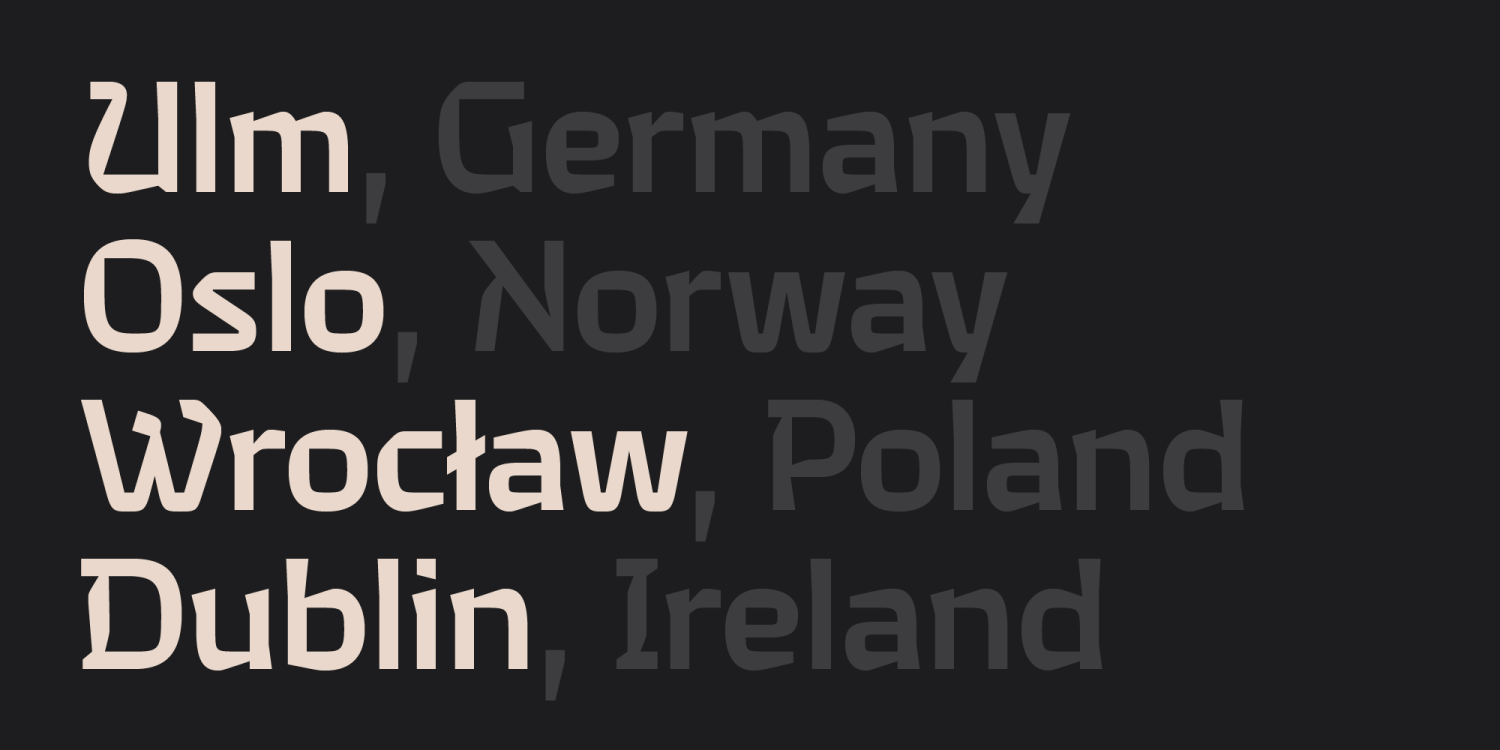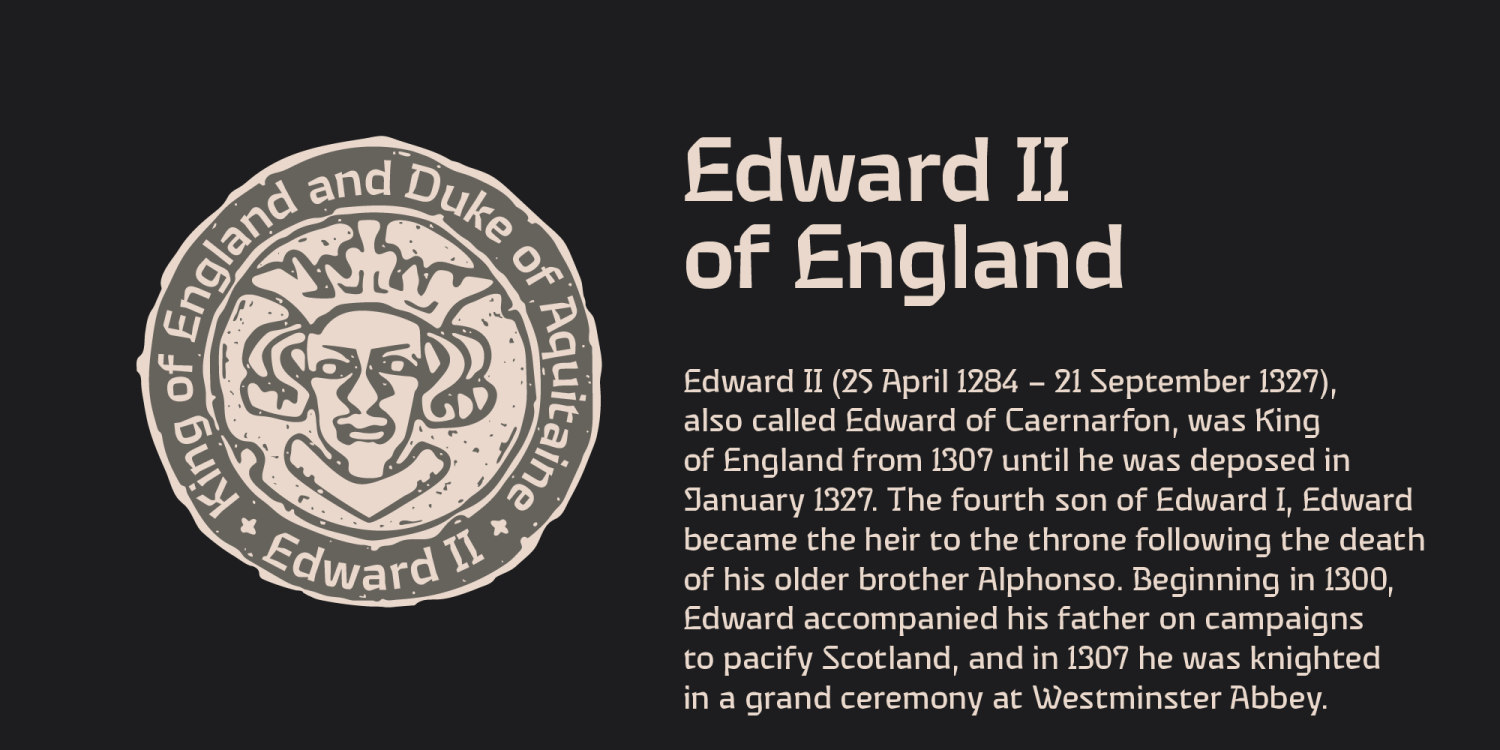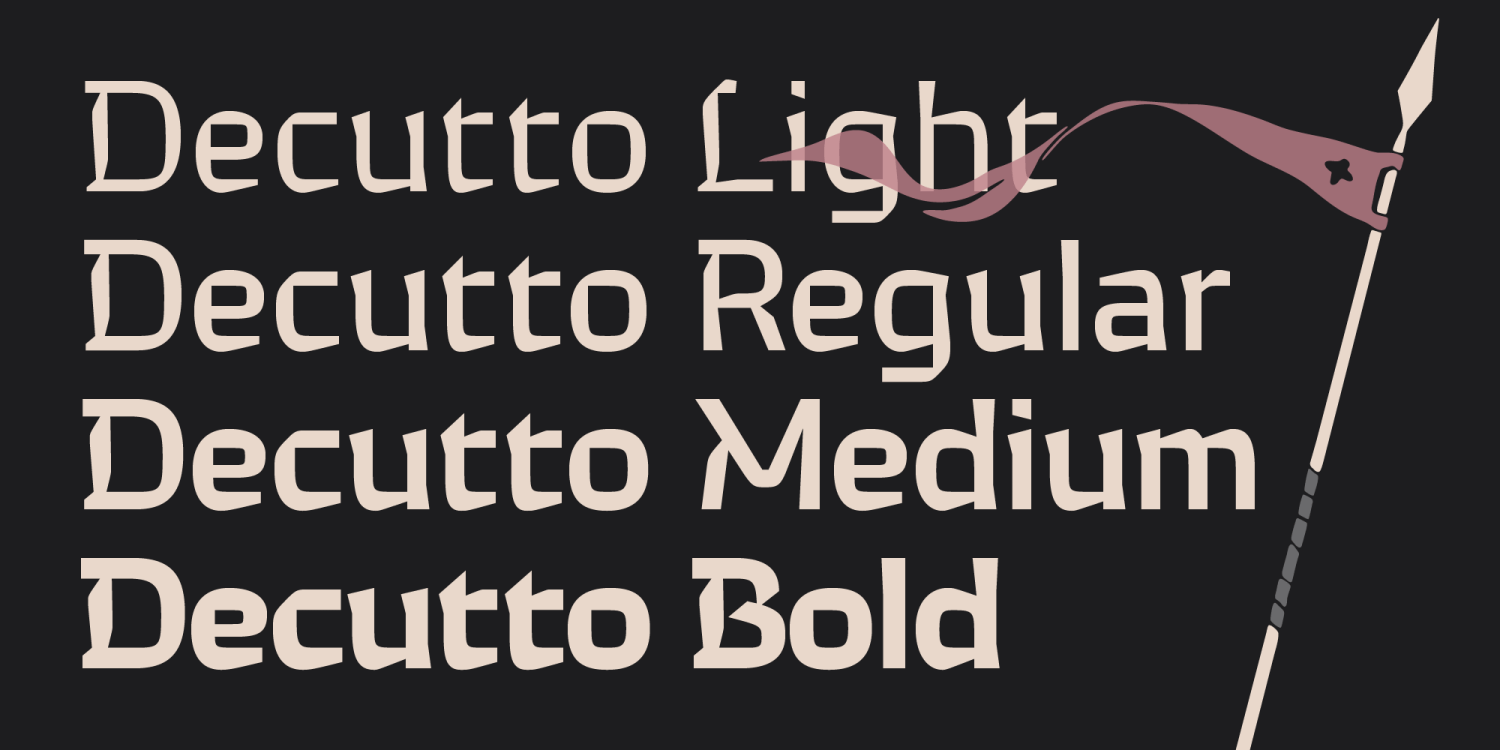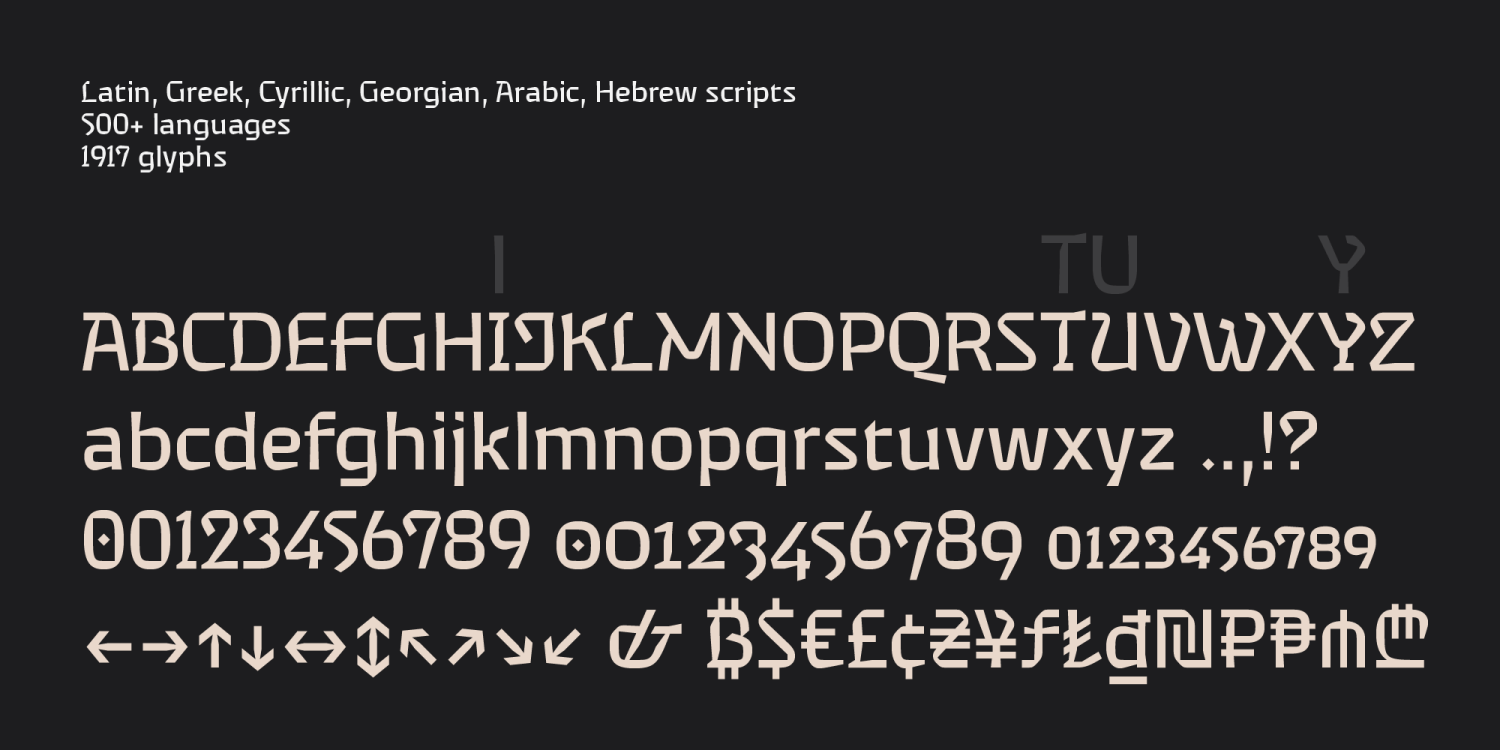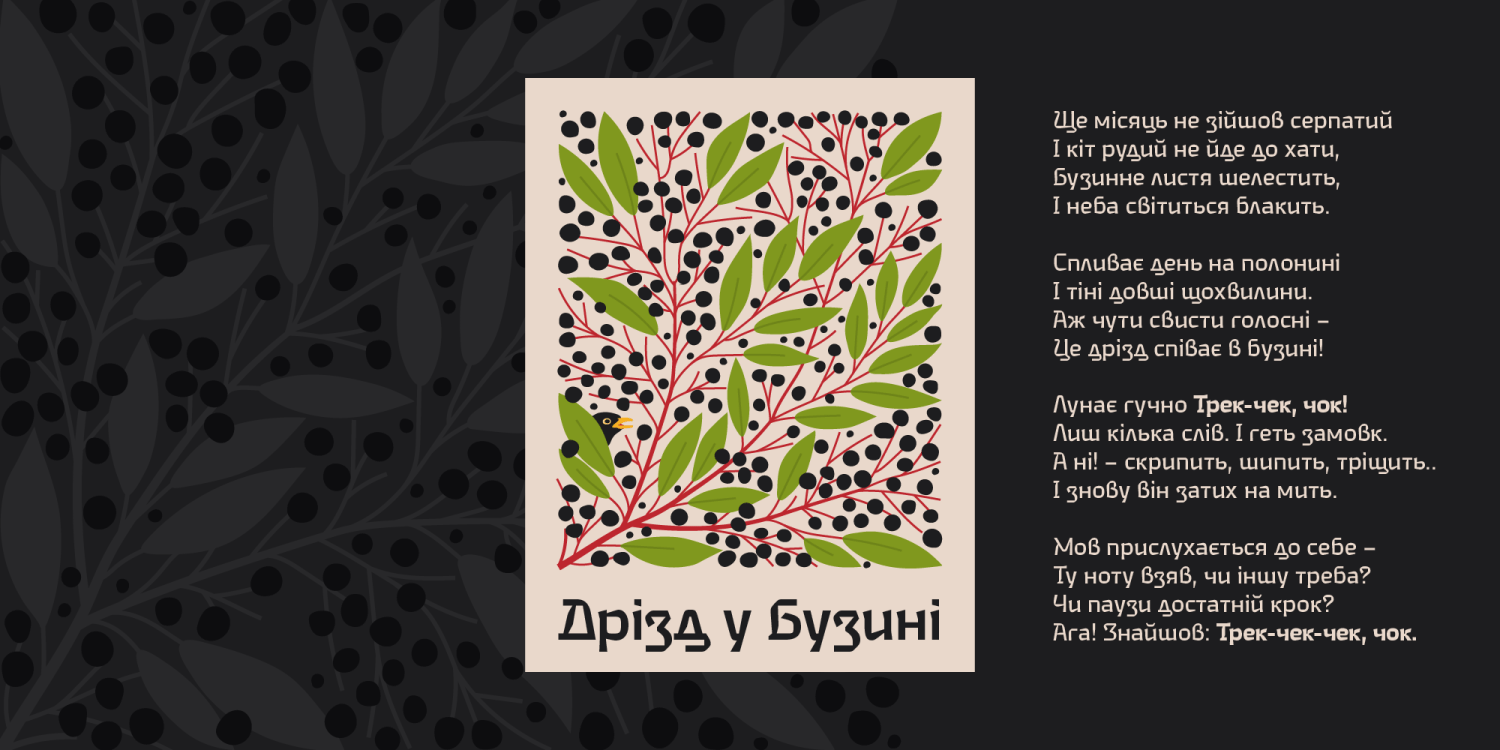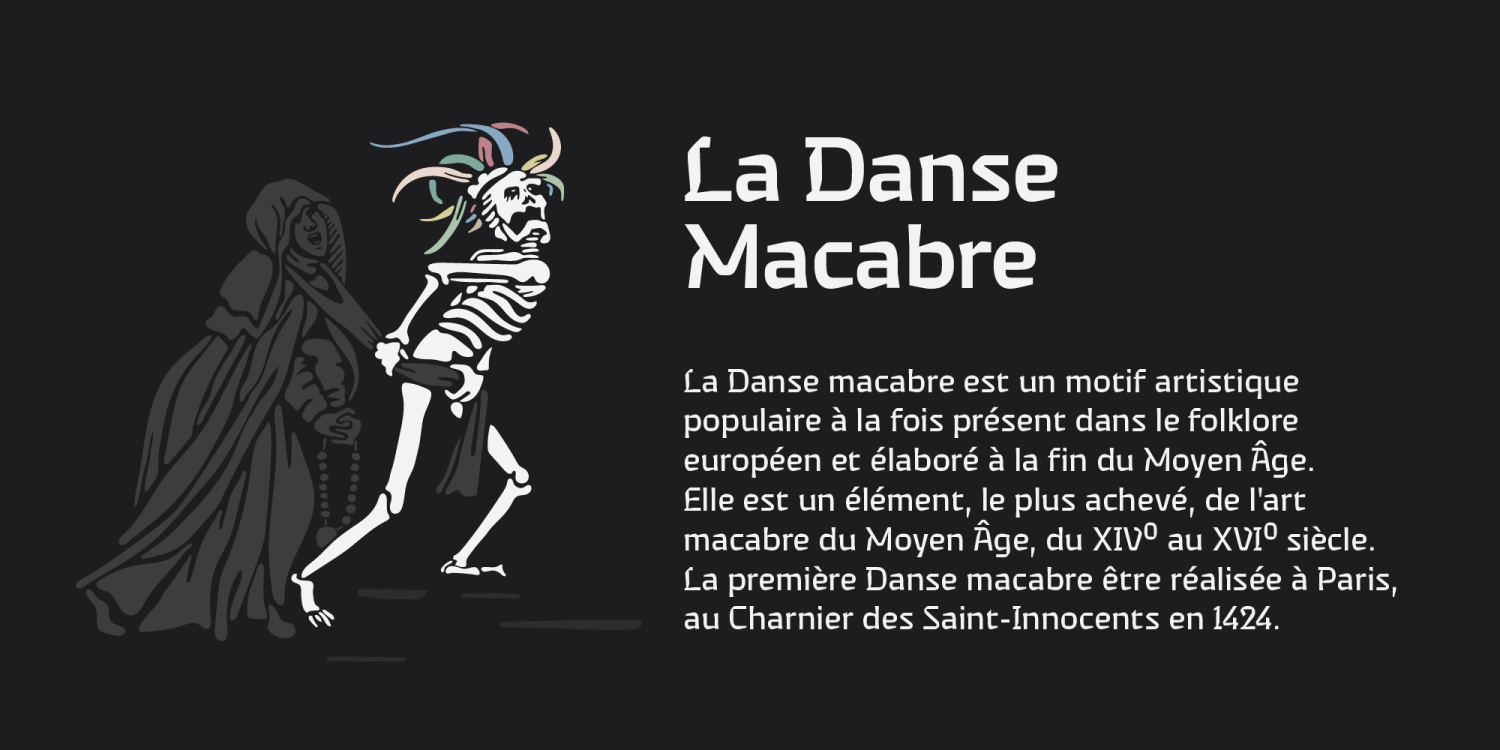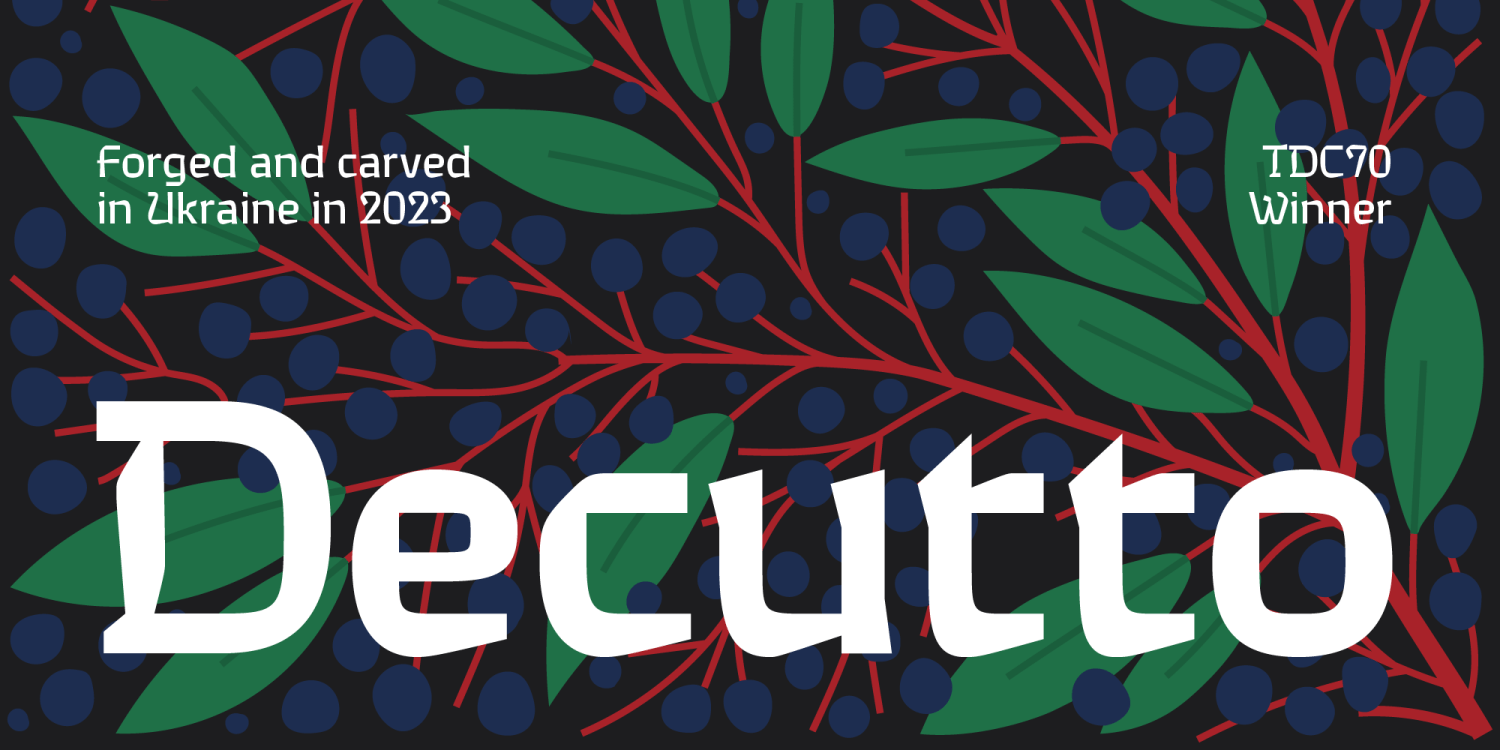
Decutto
Font Family by Michael Rafailyk
Decutto is a neo-grotesque that packs the Marionette formula and some blackletter ideas into a low-contrast sans serif design. Its name plays on the phrases “off cut” and “cut to” which express the key feature – the contemporary legible letter shape is decorated with cut carved edges and counters, giving the typeface crisp and simplistic look, like that of an old minted coin.
Scripts supported: Latin, Greek, Cyrillic, Georgian, Arabic, Hebrew